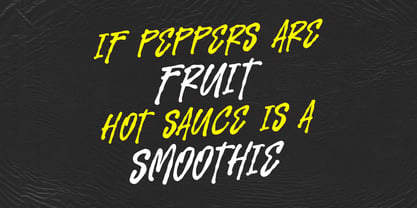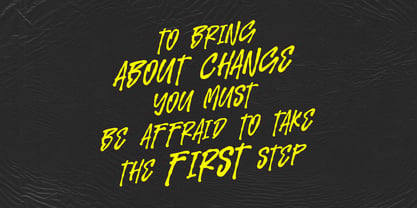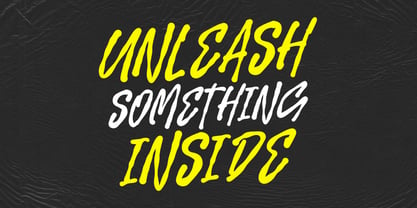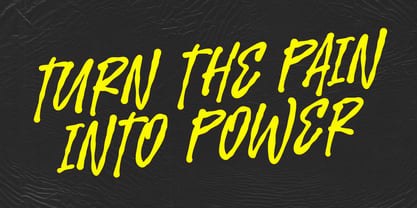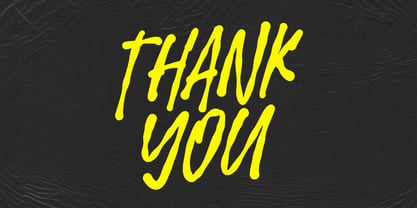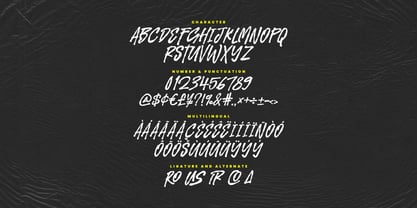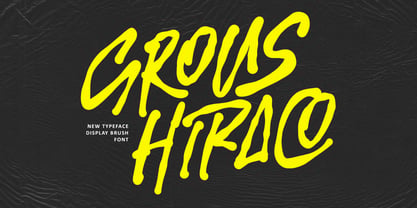
MC Grous Hiraco
by Maulana Creative
The MC Grous Hiraco Font Family was designed by Gilang Maulana and published by Maulana Creative. MC Grous Hiraco contains 1 styles. More about this family
Unleash the raw energy and dynamic boldness of Grous Hiraco, a fierce and captivating Display Brush Font. Inspired by hand painted signs and high impact street art, Grous Hiraco is designed to grab attention and make an unforgettable statement. The vibrant, thick brush strokes give the font a genuine, handwritten feel, perfectly conveying messages of power, motivation, and fun. Whether you're designing for a sports brand, a music album, high energy, or bold motivational, this font delivers an instant shot of adrenaline. Grous Hiraco is perfect for: - Branding, logo design for energetic brands and startups. - Advertising, headlines, banners, and social media promotions. - Media, album, movie, and thumbnails. - Motivational content, quote and inspiring graphics.
Designers: Gilang Maulana
Foundry: Maulana Creative